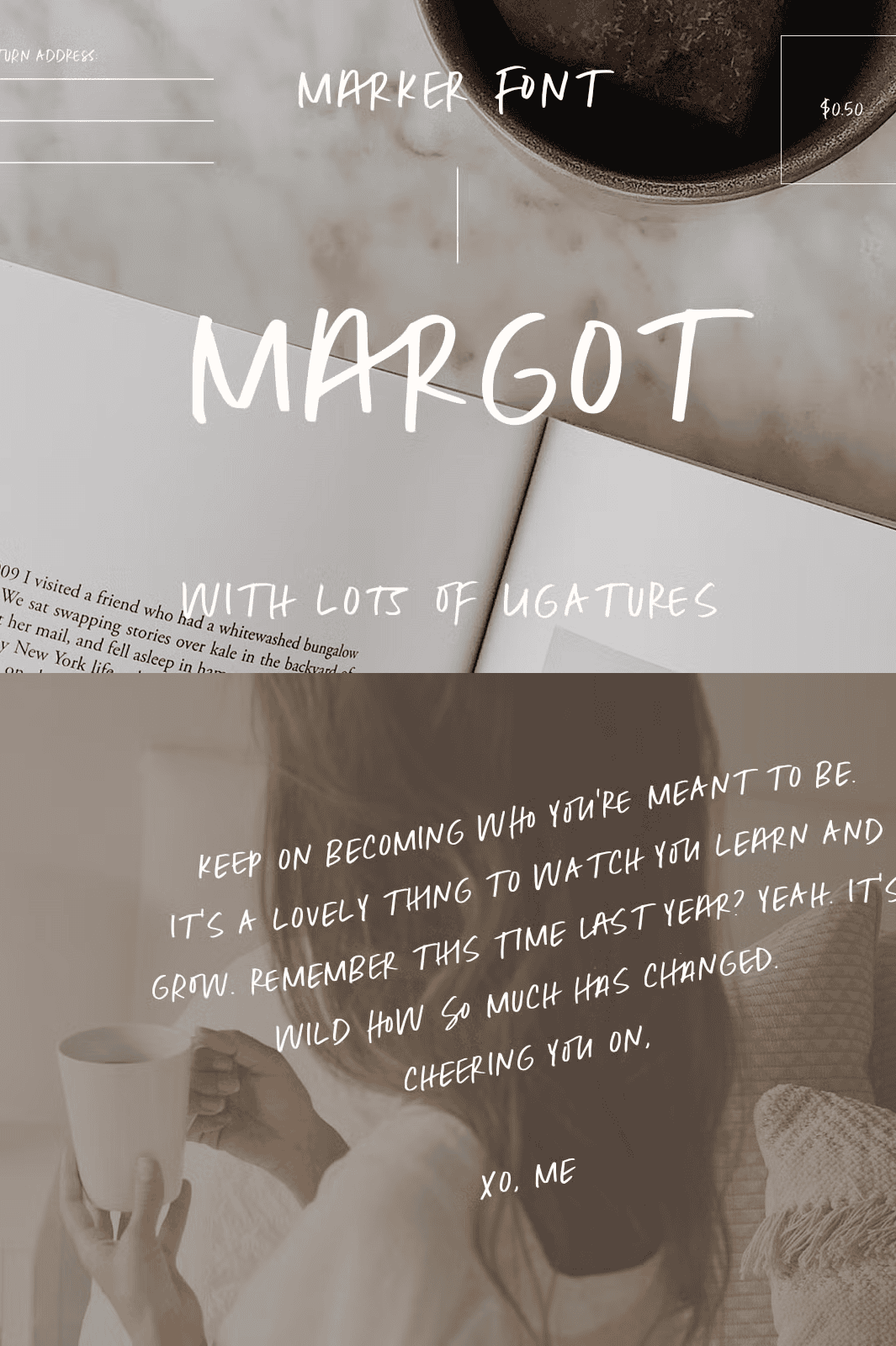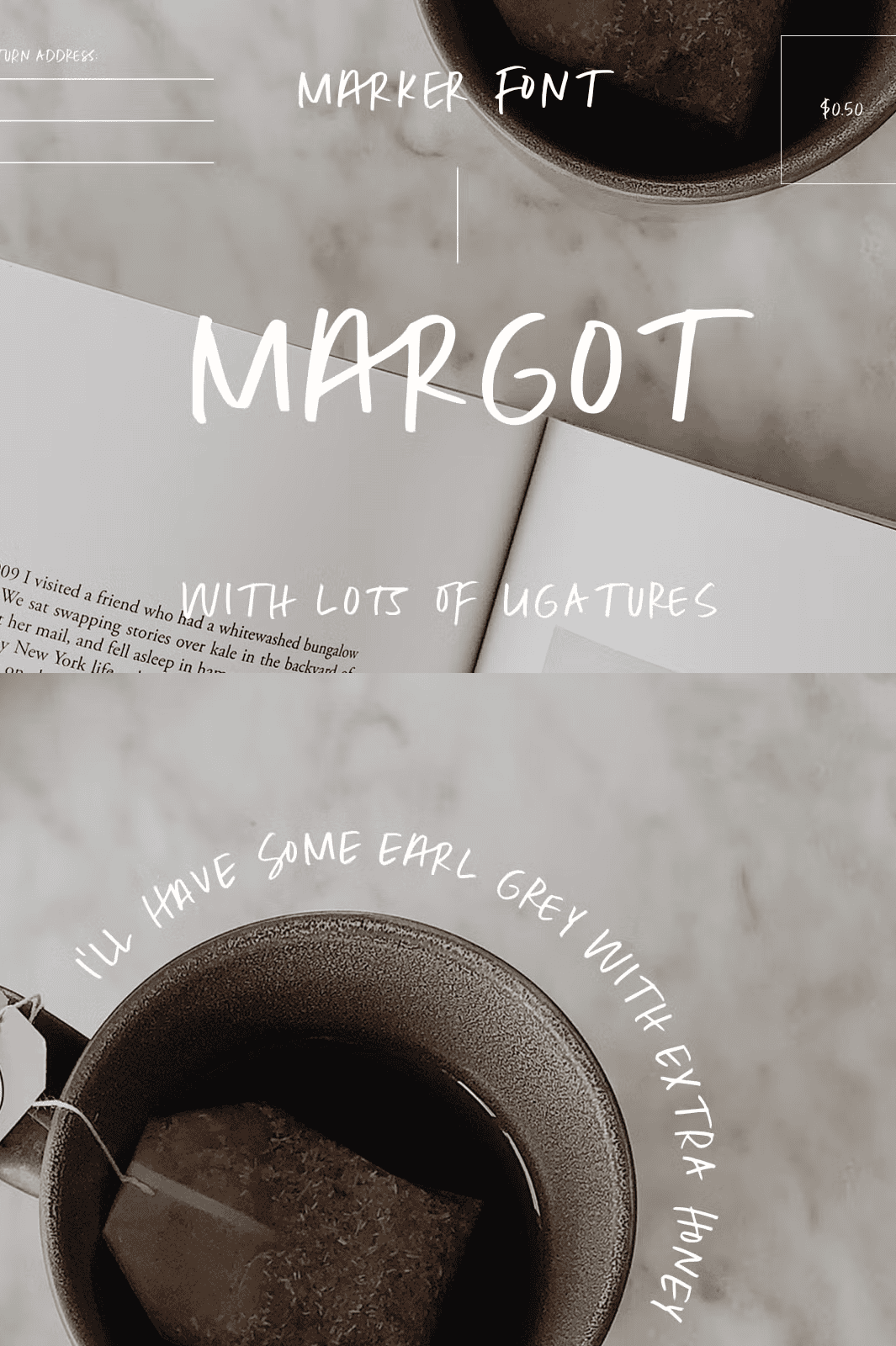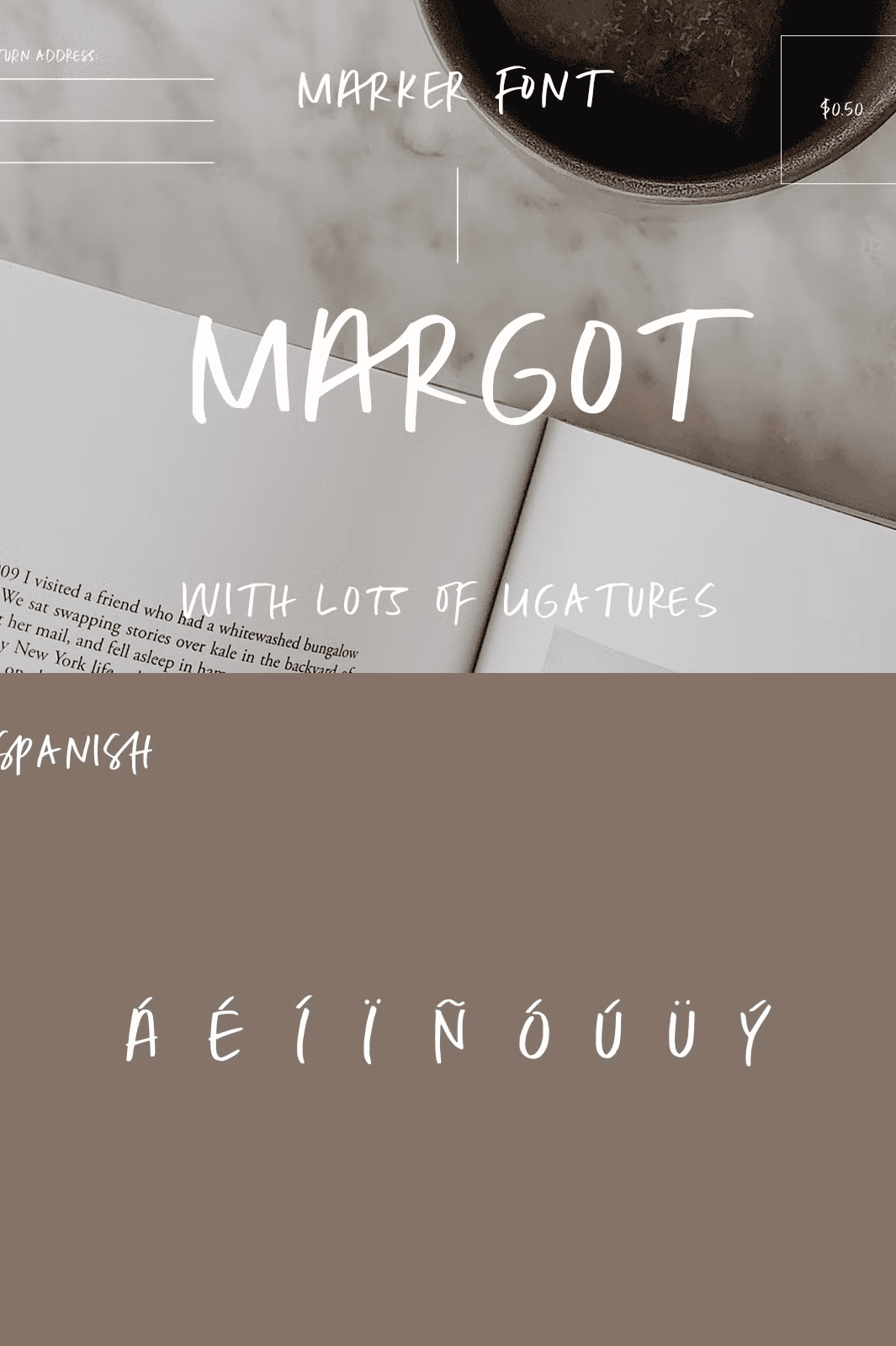
Margot Marker Font
Ignite Your Design with Dynamic Hand-Lettered Energy and Expressive Letter Variations
Transform your visual messaging with **Margot Marker Font**, a powerful all caps typeface engineered to capture the raw, authentic feel of a handwritten note. Every character pulses with personality, blending the imperfections of real brushwork with the precision of modern design. Whether you’re crafting bold social media posts, striking advertising campaigns, or expressive branding elements, this font delivers instant visual impact with unmatched character and soul.
This isn’t a generic typeface — it’s a versatile design tool built for creators who demand expressive, handcrafted results. With **three distinct variations for each letter**, you gain full control over rhythm and texture, allowing every word to feel unique and intentional. Use the variations to create natural flow, break monotony, and guide the reader’s eye across your layout. The result? Designs that don’t just communicate — they captivate.
Master the Art of Natural Flow with 150+ Expertly Crafted Ligatures
Leverage **150+ hand-designed ligatures** to achieve a fluid, organic reading experience that mimics real handwriting. These built-in connections between characters eliminate the mechanical feel often found in digital fonts. Whether you’re typing “MARKER”, “BOLD”, or “CREATE”, the ligatures ensure smooth transitions and a naturally uneven, imperfect rhythm that draws the eye.
– Experience seamless letter joining with common combinations like “MA”, “AR”, “ER”, “TE”
– Access alternate forms for high-contrast letters like “T” and “K”
– Use ligatures to enhance legibility and add visual depth to short phrases and headlines
Expand Your Creative Reach with Multi-Language Support
Design with global confidence. Margot Marker Font supports **English, Spanish, French, and German**, including full diacritic coverage for accented characters. Whether you’re creating multilingual content, translating taglines, or building international branding collaterals, this font ensures consistency across languages. Use it for bilingual posters, multilingual social media content, or international campaign materials — no compromises, no missing characters.
Let Your Message Speak with Soul, Style, and Unmatched Authenticity
Margot Marker Font isn’t just a tool — it’s a creative partner. Let it bring your ideas to life with boldness, texture, and expressive depth. Whether you’re launching a new campaign, designing a logo, or sharing a quote, this font ensures your work stands out with real human touch.
Don’t just type — *make an impact*.